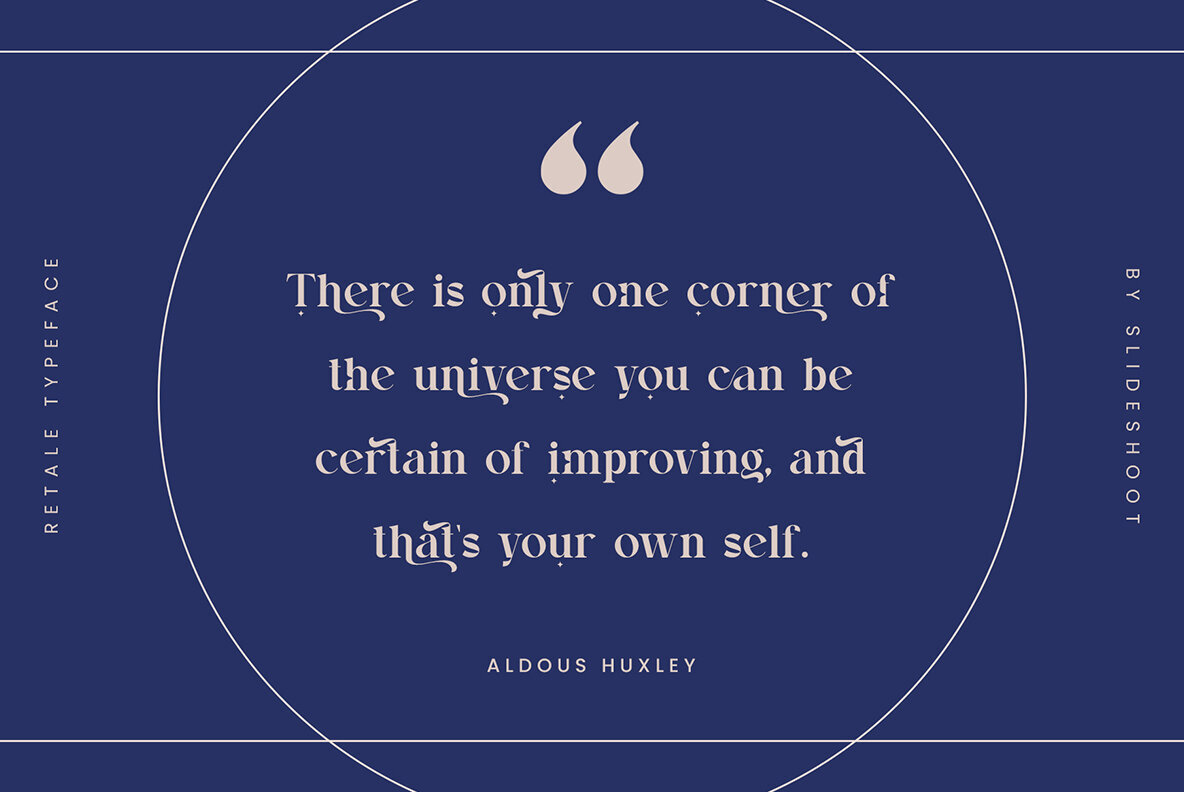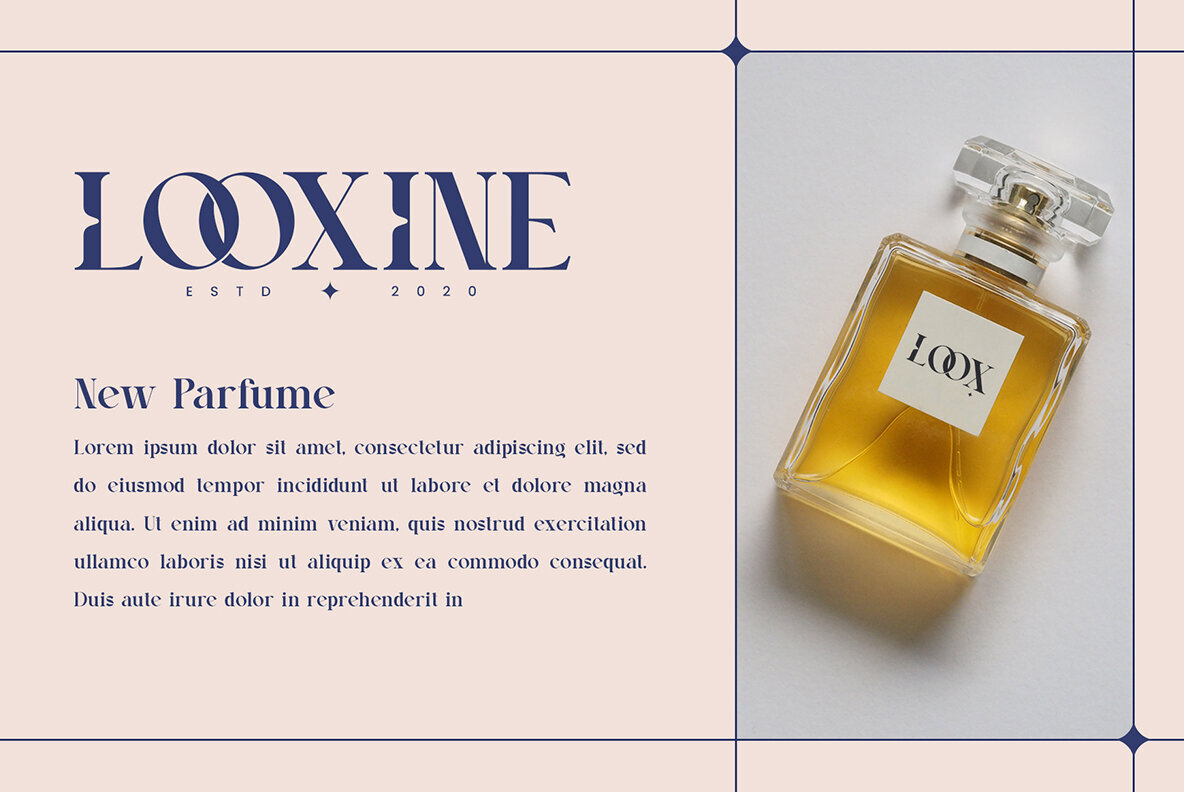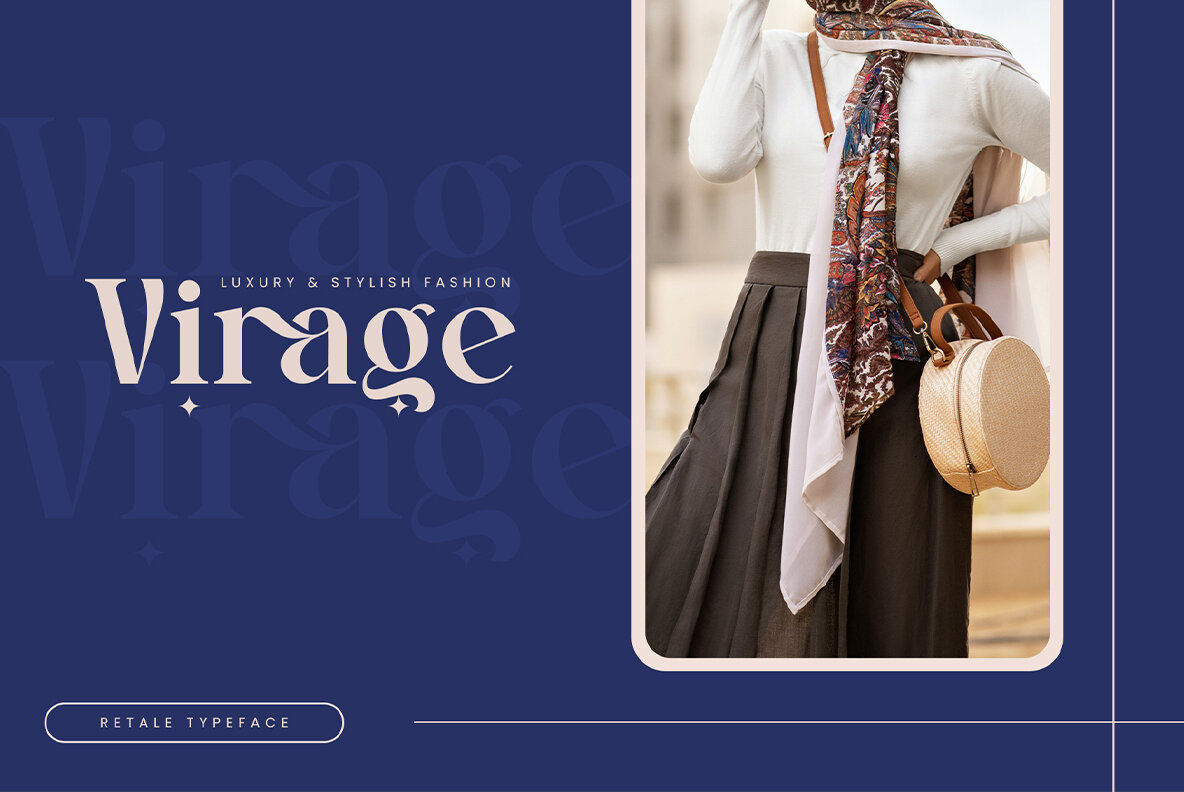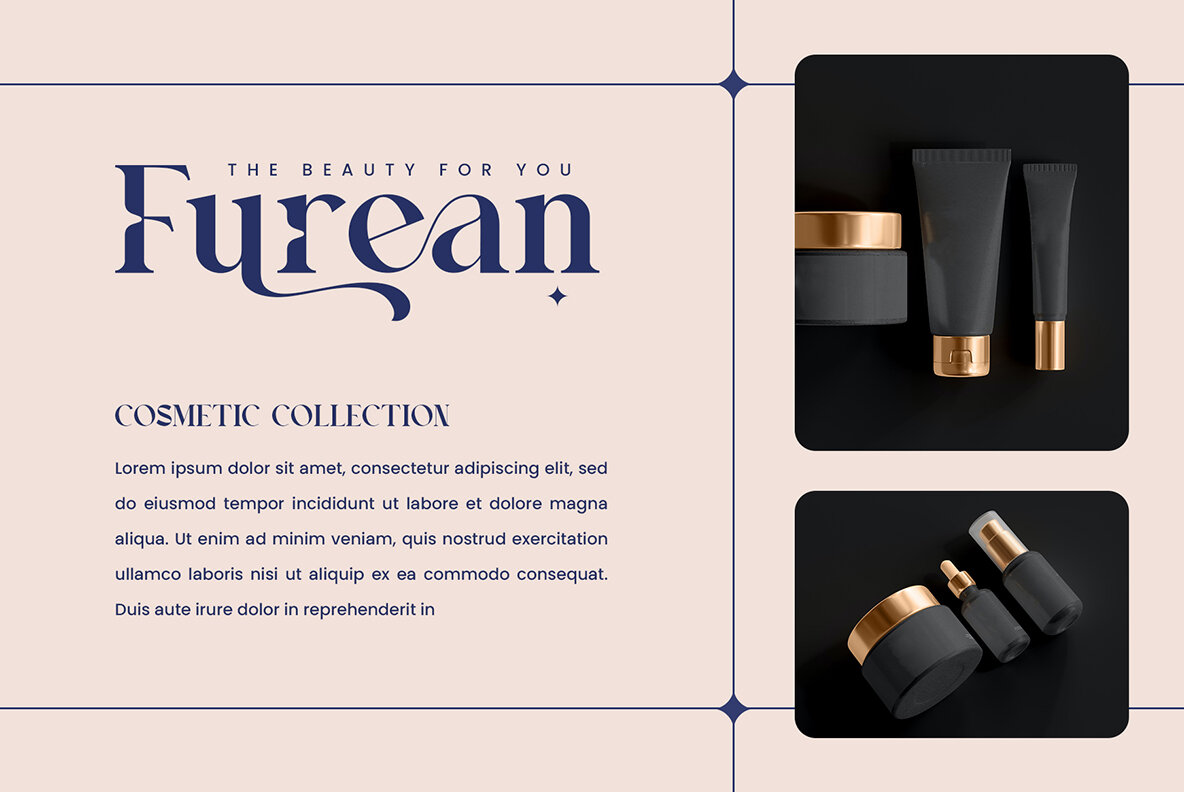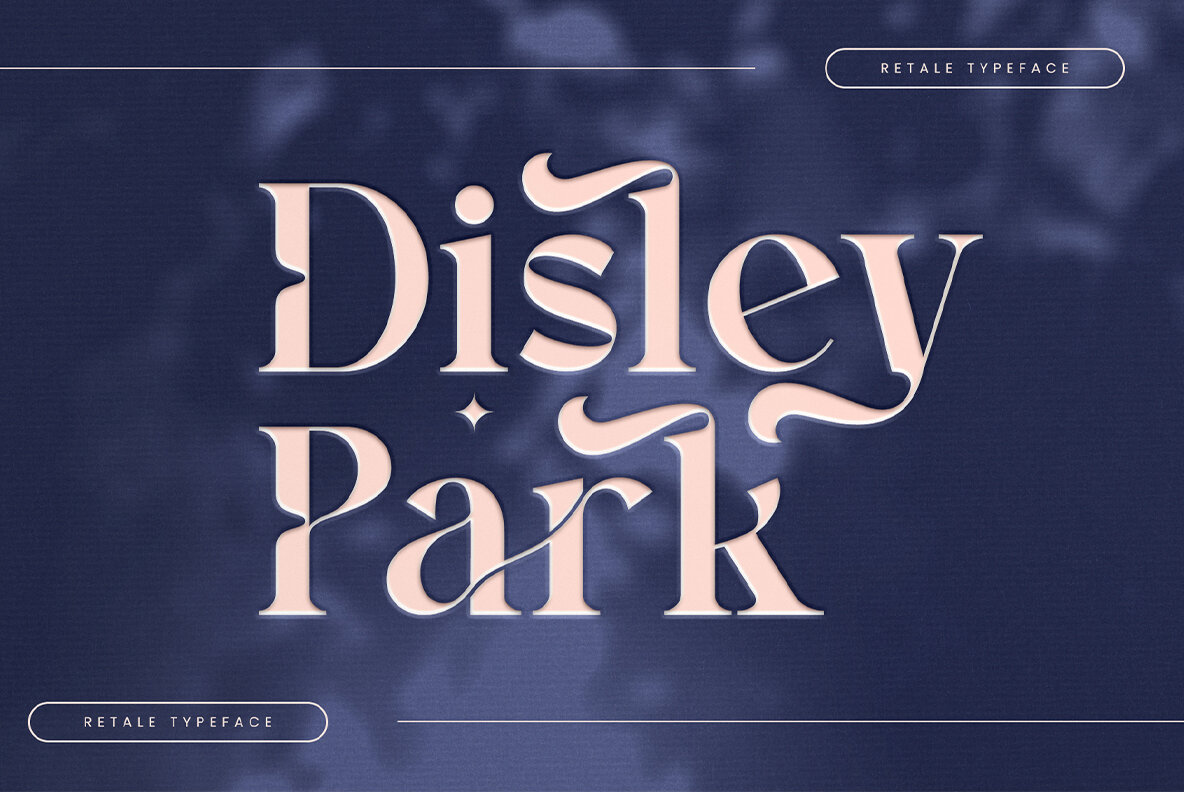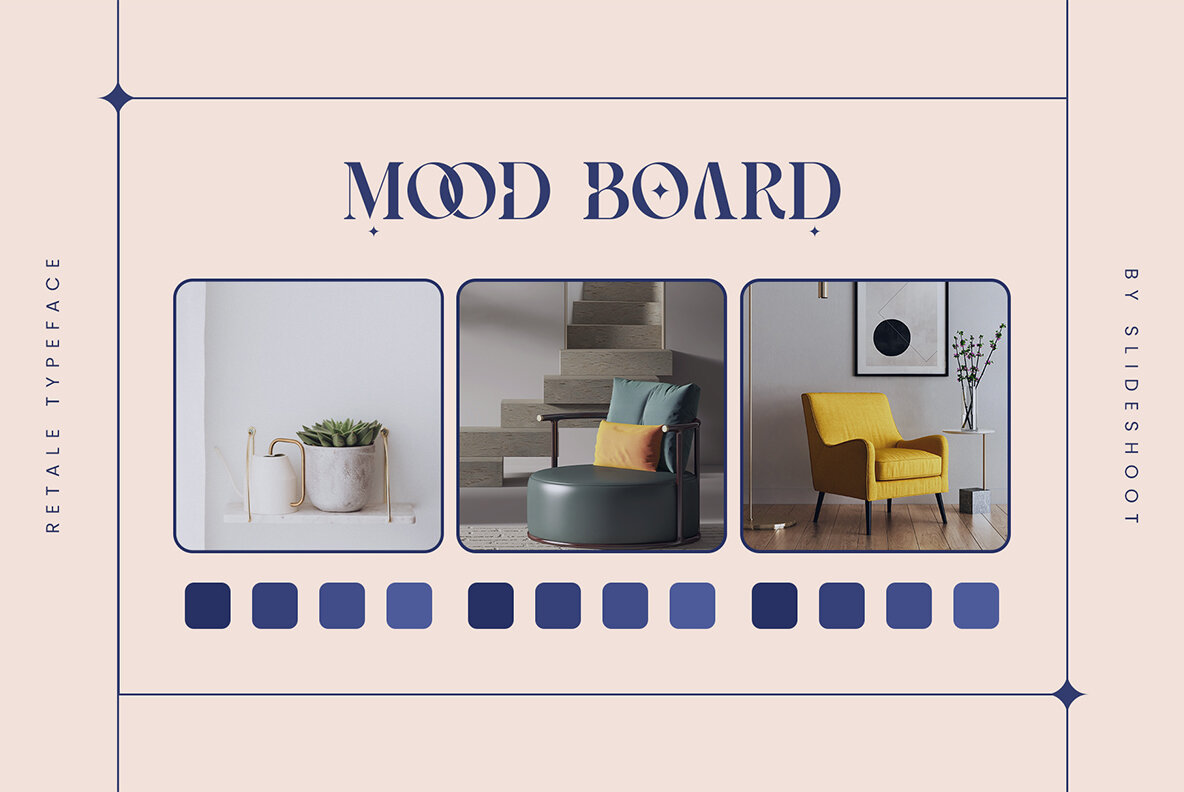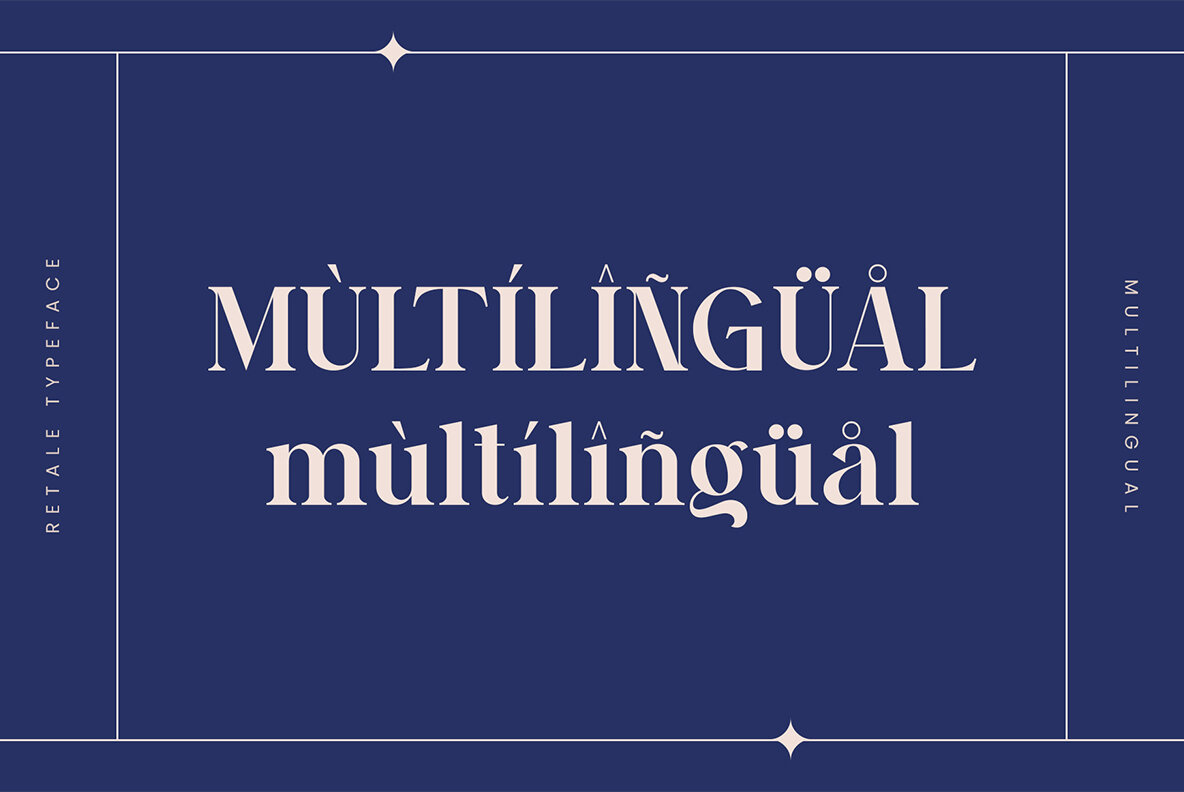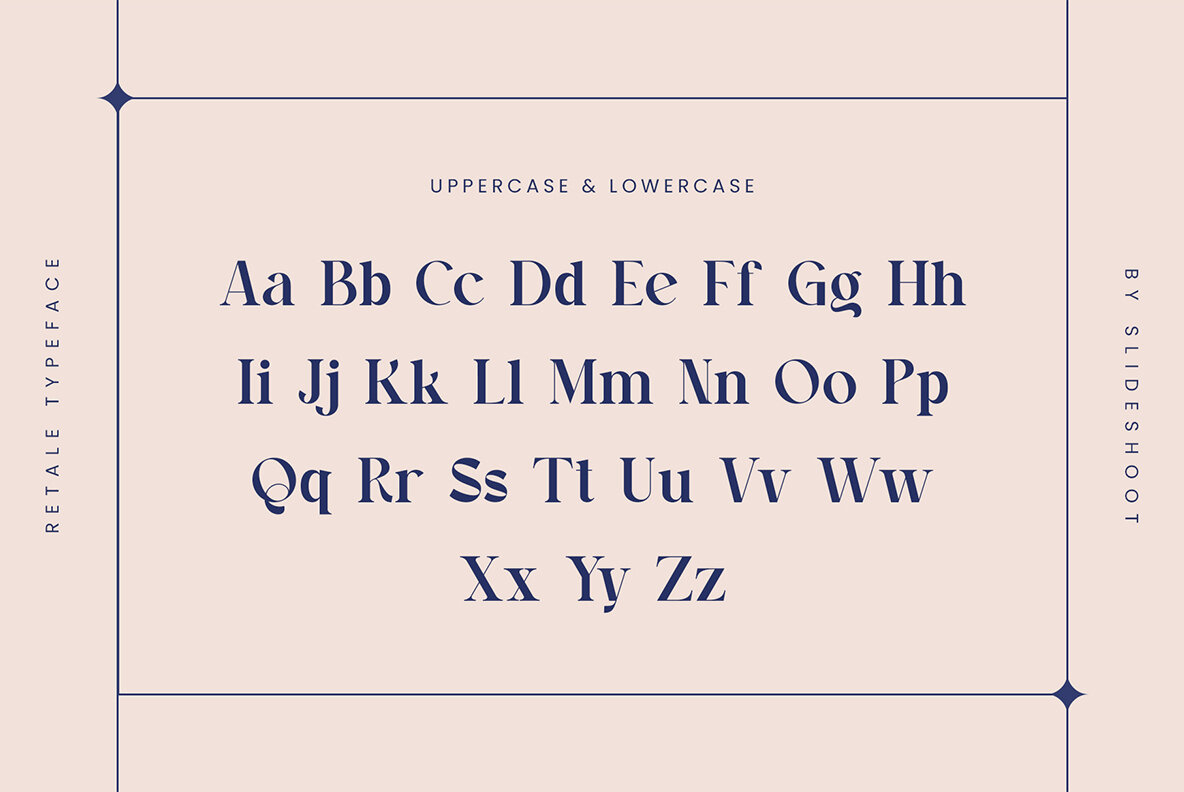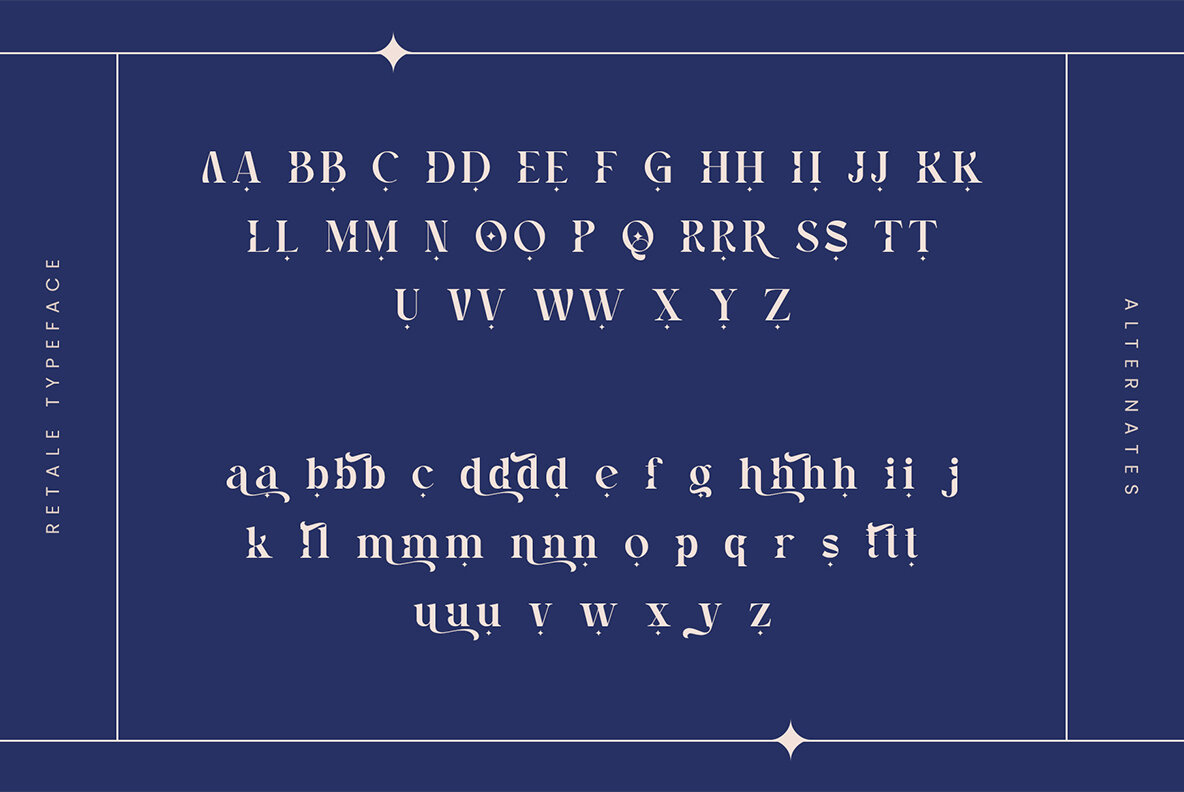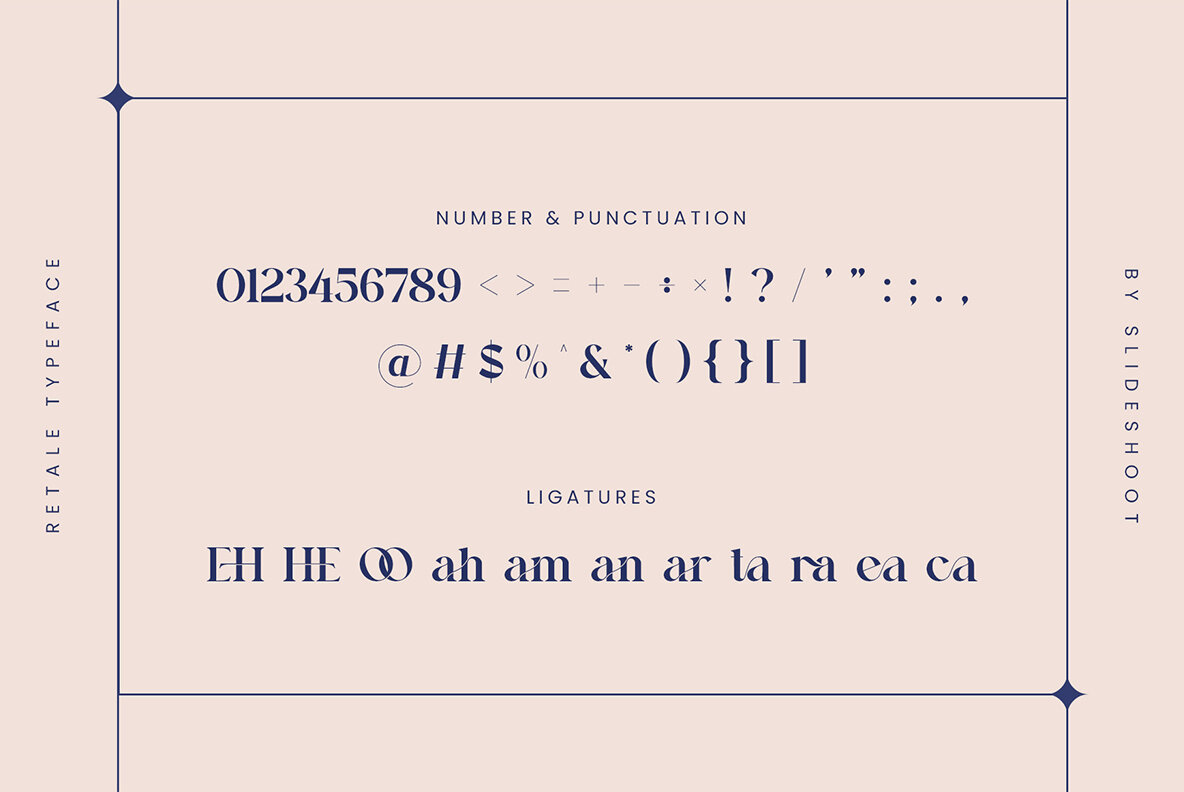
Retale Font
Retale Regular
Retale Serif is a balanced, smooth, and stylish serif font designed to enhance any project with its elegant characteristics. Perfectly suited for a range of designs including invitation cards, company logos, movie titles, business cards, book titles, and brand names, Retale Serif brings sophistication and charm to every application. Its stylish alternations and ligatures make it the ideal partner for your creative endeavors.Retale Serif: Elegance and Versatility